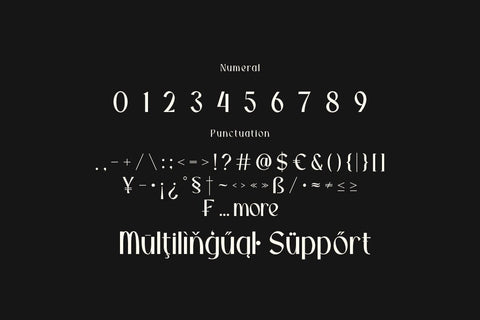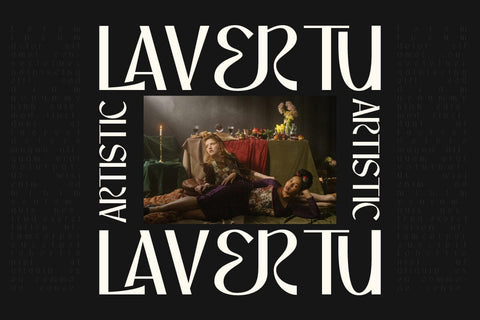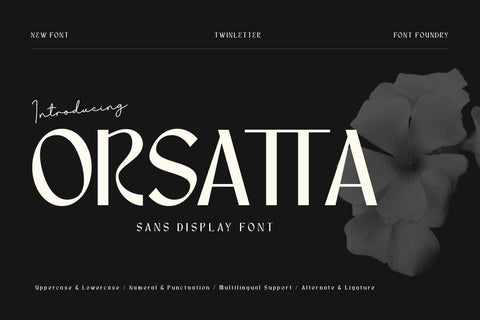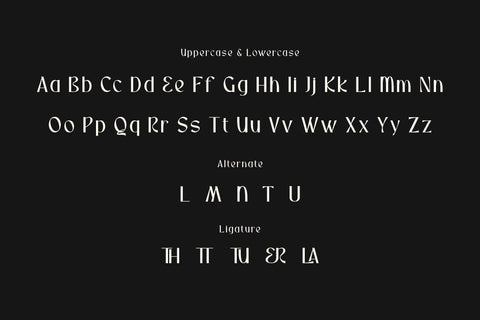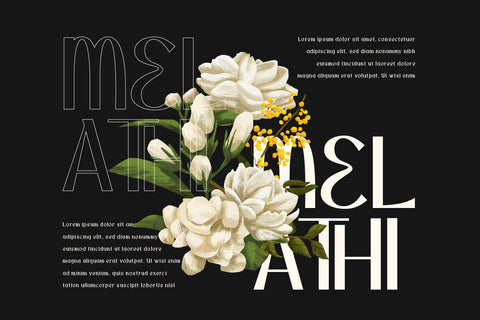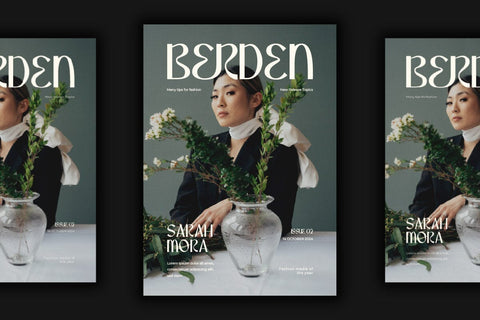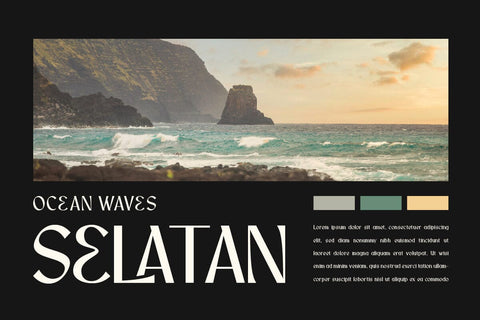
Orsatta - Display Font
Introducing Orsatta, a display font that embodies bold creativity and dynamic expression. With its unique and striking design, Orsatta is perfect for projects that demand attention and originality. Ideal for branding, posters, album covers, and promotional materials, Orsatta's distinctive style adds a powerful visual punch to any design. Its bold shapes and intricate details make it a go-to choice for designers who want to make a statement. Let Orsatta infuse your projects with energy and flair, and watch as your work comes to life with unparalleled vibrancy and impact. Dare to be different with Orsatta, the font that turns every design into a work of art.